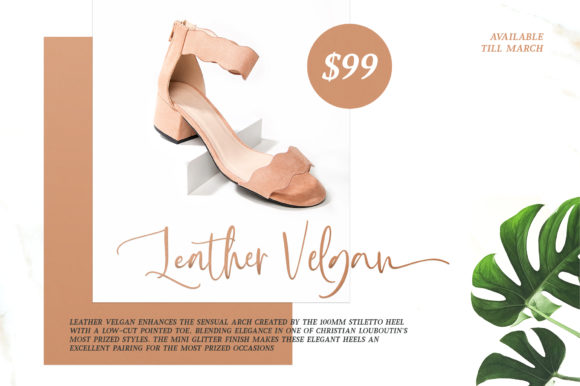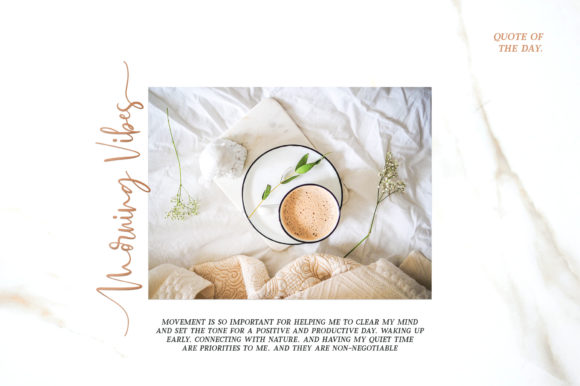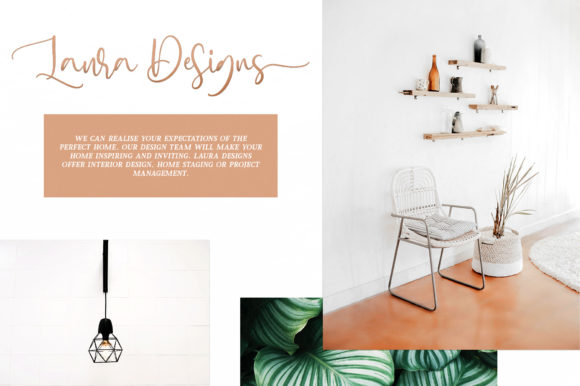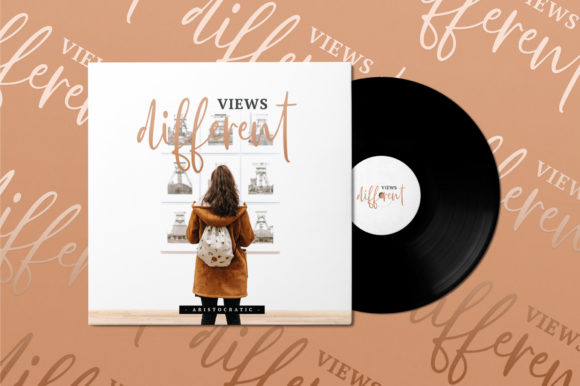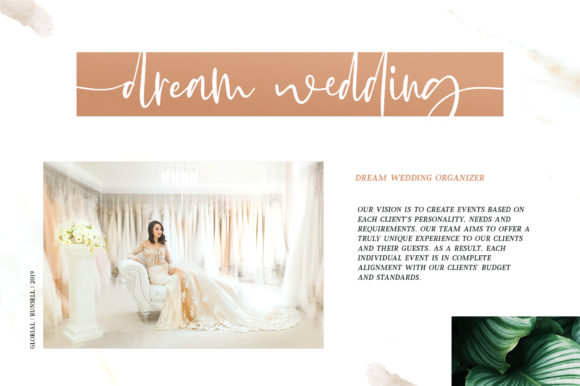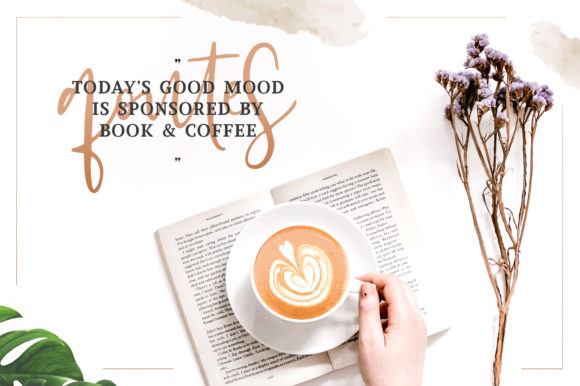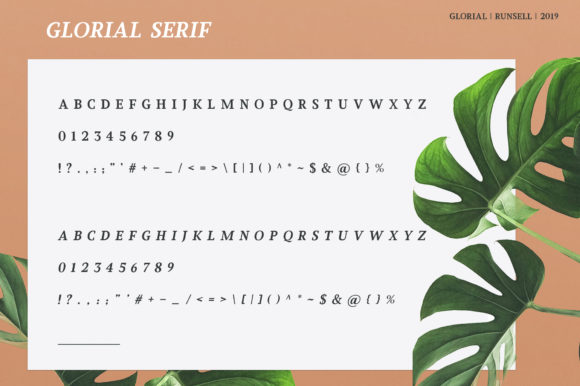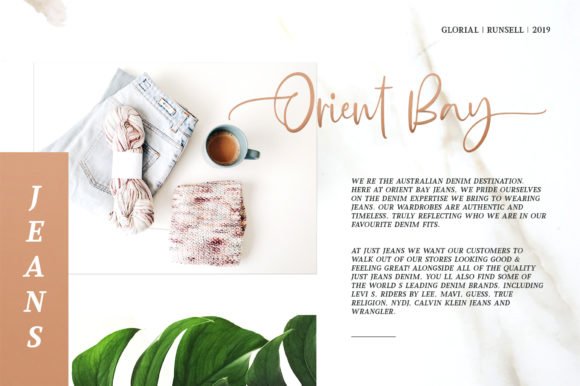
Glorial Duo Font
About Glorial Duo Font
Glorial is a delicious and authentic font duo that will elevate any design projects with its contemporary charm. Fall in love with its classic appeal!